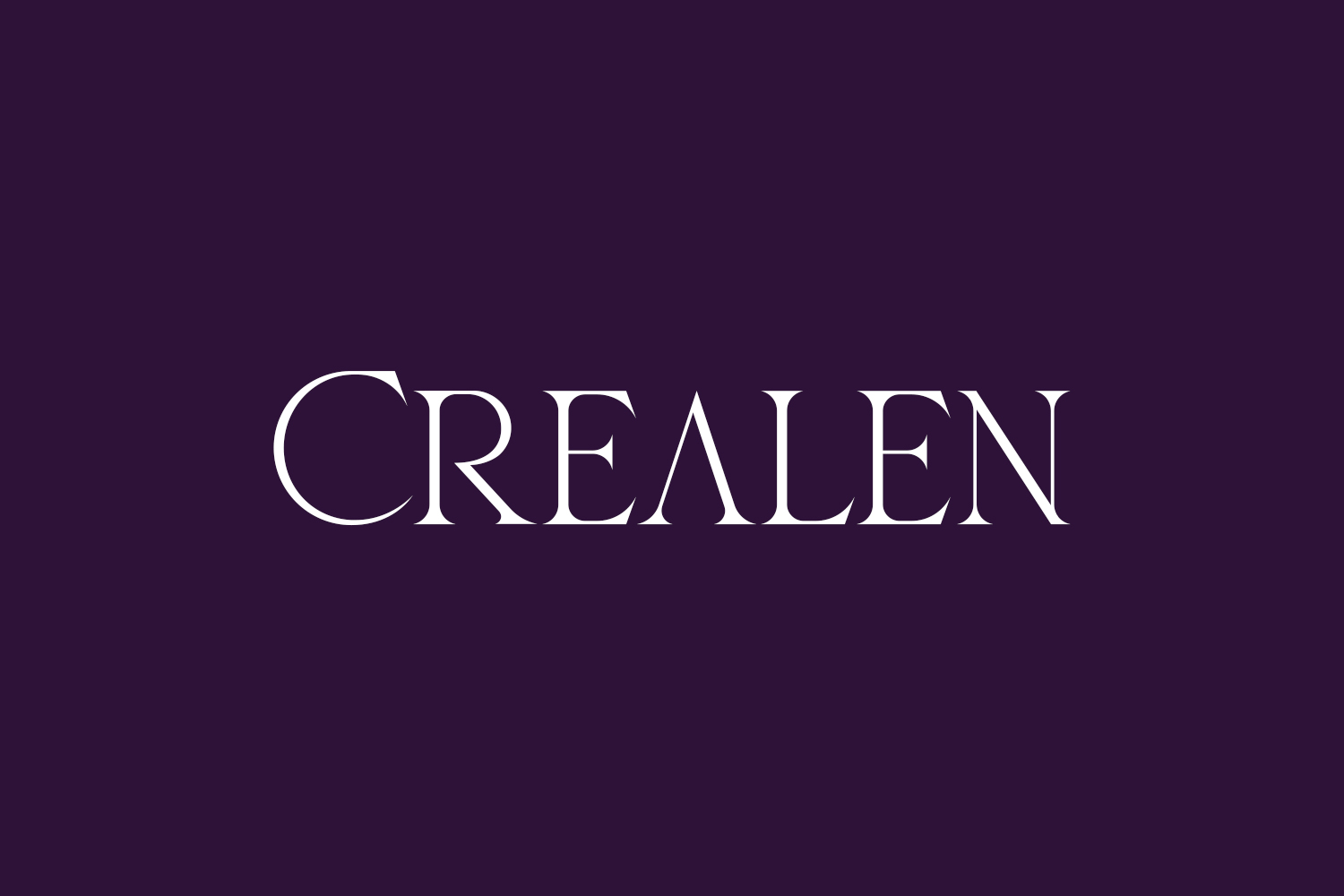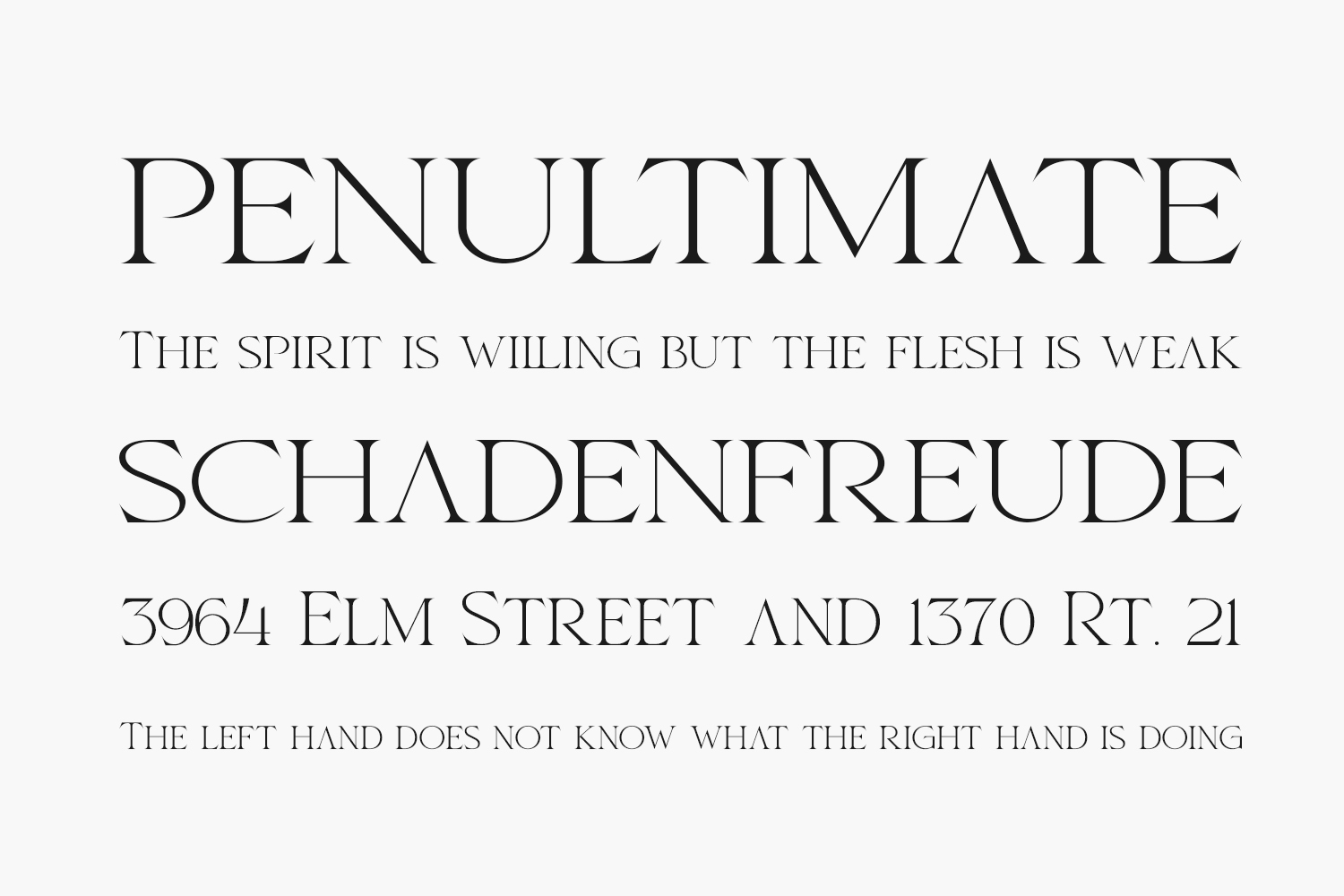
Meet Crealen Free Font, an elegant serif font boasting a distinctive style and contemporary appeal. Tailored for luxurious and refined designs, it’s an ideal choice for upscale logos, captivating book or movie titles, prestigious fashion labels, glossy magazines, stylish apparel, captivating lettering, inspiring quotes, and beyond. Embrace its allure and watch as your projects ascend to new heights of sophistication. Download the font for free if you need it for personal use or purchase the full version for commercial use.